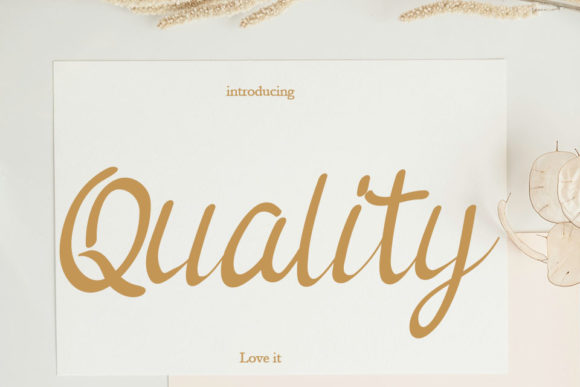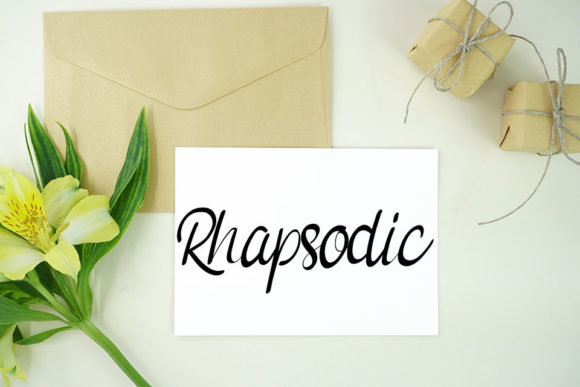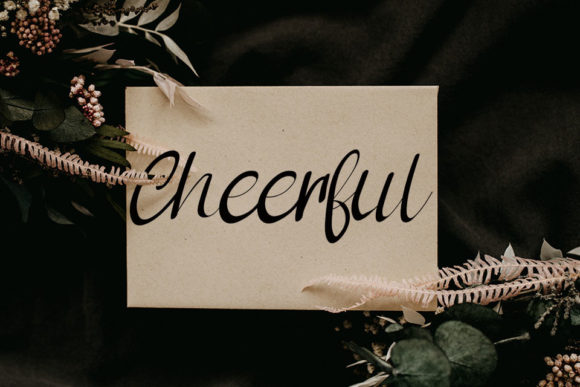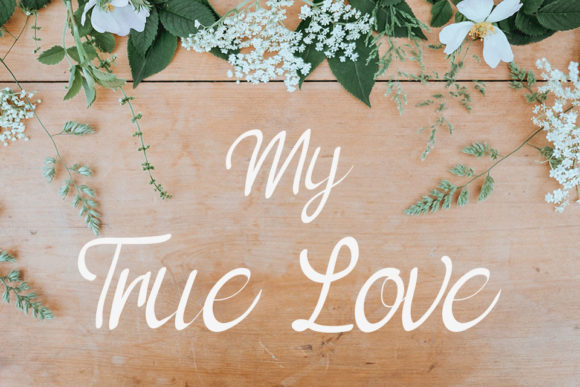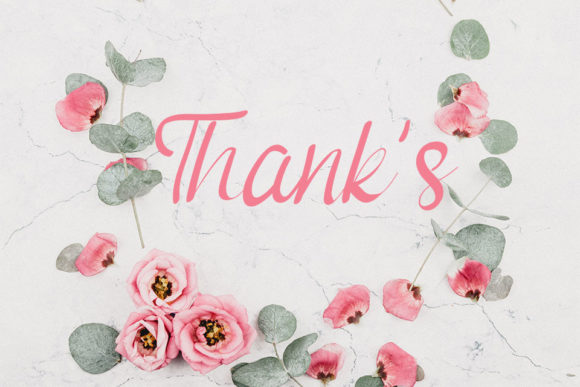
Quality Font
About Quality Font
Quality is an exquisite handwritten font that has been masterfully designed to become a true favorite. It manages to maintain its classy calligraphic influences while still feeling contemporary and fresh. Fall in love with it and elevate your projects to the highest levels!
The elegance of Quality lies in its design. It’s been crafted with a masterful touch, making it a standout choice for a variety of creative projects. Whether you’re a professional designer or a hobbyist, Quality can help you bring your designs to life.
One of the standout features of Quality is its calligraphic influences. This gives it a classic and timeless feel, making it perfect for projects that require a touch of elegance and sophistication. Whether you’re designing a wedding invitation, a logo, or a social media post, Quality can add that extra touch of class that makes your designs stand out.
Quality is not just a font; it’s a tool that can help you express your creativity. Its contemporary and fresh look can bring a sense of modernity and freshness to your designs, making them more appealing and engaging. Whether you’re designing for a client or for your own personal projects, Quality can help you convey the right emotion and message.
Moreover, Quality can elevate your projects to the highest levels. Its elegant and professional look can enhance your project’s overall aesthetic, making it more appealing to your audience. Whether you’re designing a logo, a business card, or a website, Quality can help you create a consistent and professional look for your project.
In conclusion, Quality is an exquisite, handwritten font that is perfect for a wide range of projects. Its calligraphic influences and contemporary feel make it a valuable asset for any designer. So, whether you’re a professional designer or a hobbyist, Quality is a font worth considering for your next project. Why not give Quality a try and see how it can enhance your designs? You might be surprised at the difference it can make!